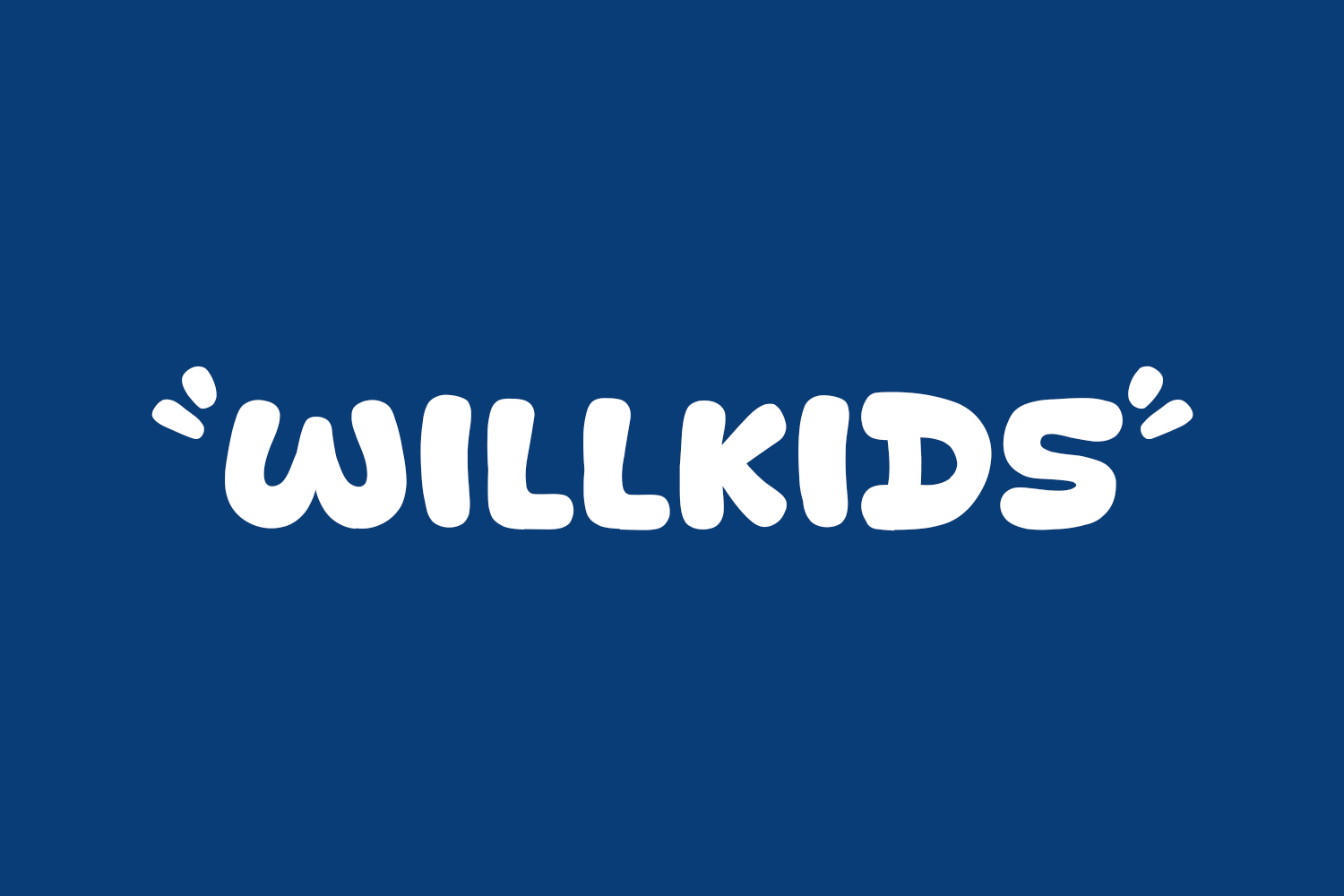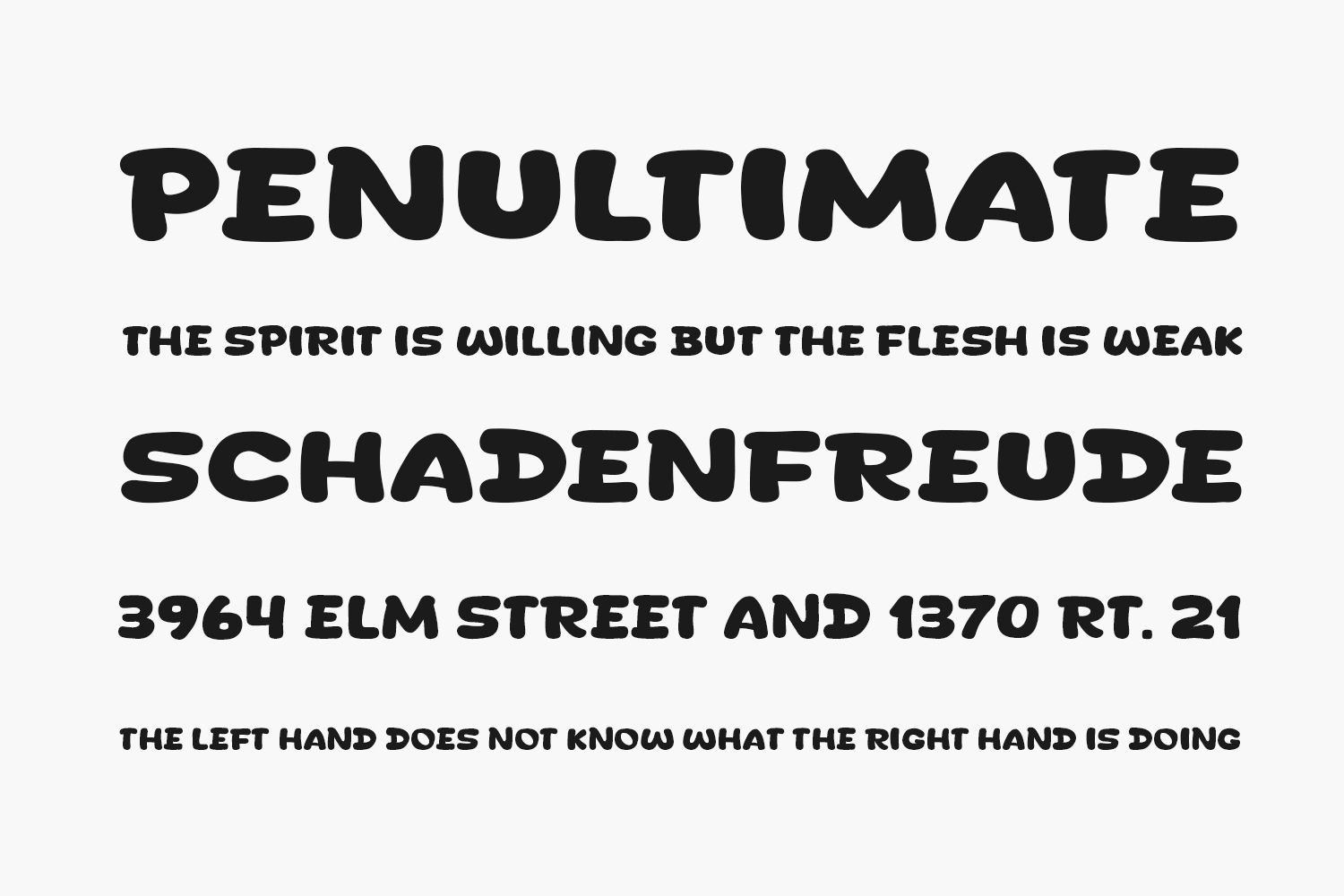
Discover the allure of Willkids Free Font – a contemporary and stylish display font ideal for elevating your posters, logos, magazines, book covers, banners, and beyond! Elevate your designs with this exceptional font that seamlessly complements a vast array of projects. Unleash your creative ideas and watch as Willkids transforms them into standout masterpieces! Obtain this amazing font now and witness its versatility in enhancing your artistic endeavors. Willkids Free Font was designed by Khurasan and is free for personal or commercial use.